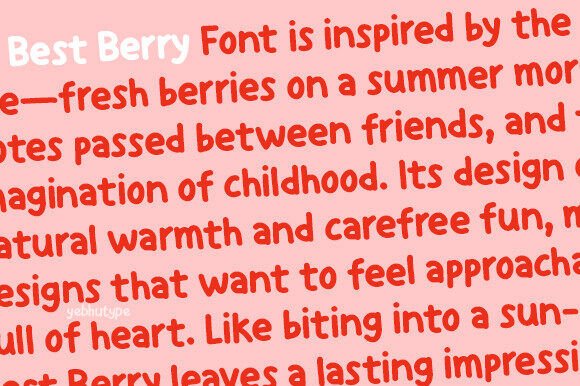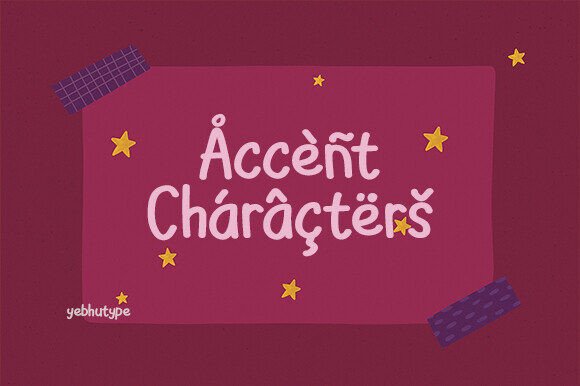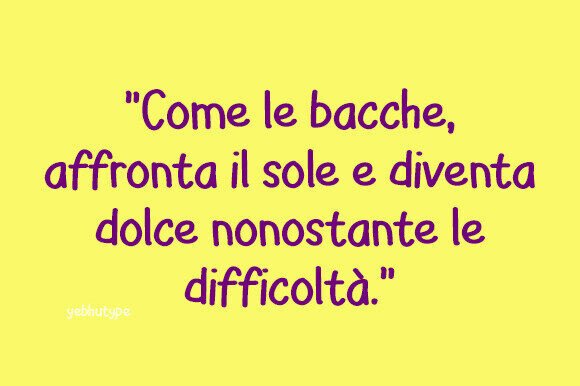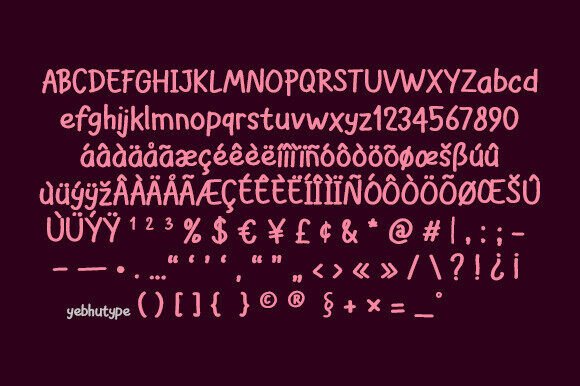
Introduction to Best Berry Font
Do you remember the joy of receiving a handwritten note from a friend, filled with doodles and scribbles that made your heart skip a beat? For designers, finding the perfect font can evoke a similar feeling – a sense of excitement and possibility. This is where the Best Berry Font comes in, a delightful handwritten typeface that captures the sweetness of childhood and the joy of playful design.
Whether you’re working on a creative project that requires a touch of whimsy or simply want to infuse your designs with a fresh, friendly feel, the Best Berry Font is a valuable resource for any designer. With its soft, rounded letterforms and cheerful energy, this font adds a touch of charm and warmth to every project, making it perfect for designs that want to feel approachable, friendly, and full of heart.
Key Features of Best Berry Font
- High-resolution design with crisp details, ideal for creative projects and print materials.
- Designed to be highly legible, making it perfect for use in a variety of contexts, from signage to editorial content.
- Unique, hand-drawn style that adds a touch of personality to any creative project.
Honest Review: Best Berry Font
As a designer, I’m always on the lookout for high-quality design resources that can elevate my creative projects. The Best Berry Font caught my attention, and I was excited to give it a try. Let’s dive into my honest review.
- Unique and playful design: The Best Berry Font has a distinctive look that’s perfect for projects that need a touch of whimsy.
- High-resolution glyphs: The font is available in high-resolution formats, making it suitable for both digital and print applications.
- Limited character set: The font only includes a limited set of characters, which may not be suitable for projects that require a wide range of symbols and punctuation.
- No bold or italic variations: While the font is available in regular weight, it would be nice to have bold and italic variations for added flexibility.
Overall, I’m impressed with the Best Berry Font, but it’s not without its limitations. If you’re looking for a unique and playful font for a creative project, this one’s worth considering. Just be aware of the limitations mentioned above and adjust your expectations accordingly.
Best Berry Font is commonly used in creative projects such as social media graphics, blog posts, and marketing materials. Its transparent background makes it ideal for use on top of images or videos.